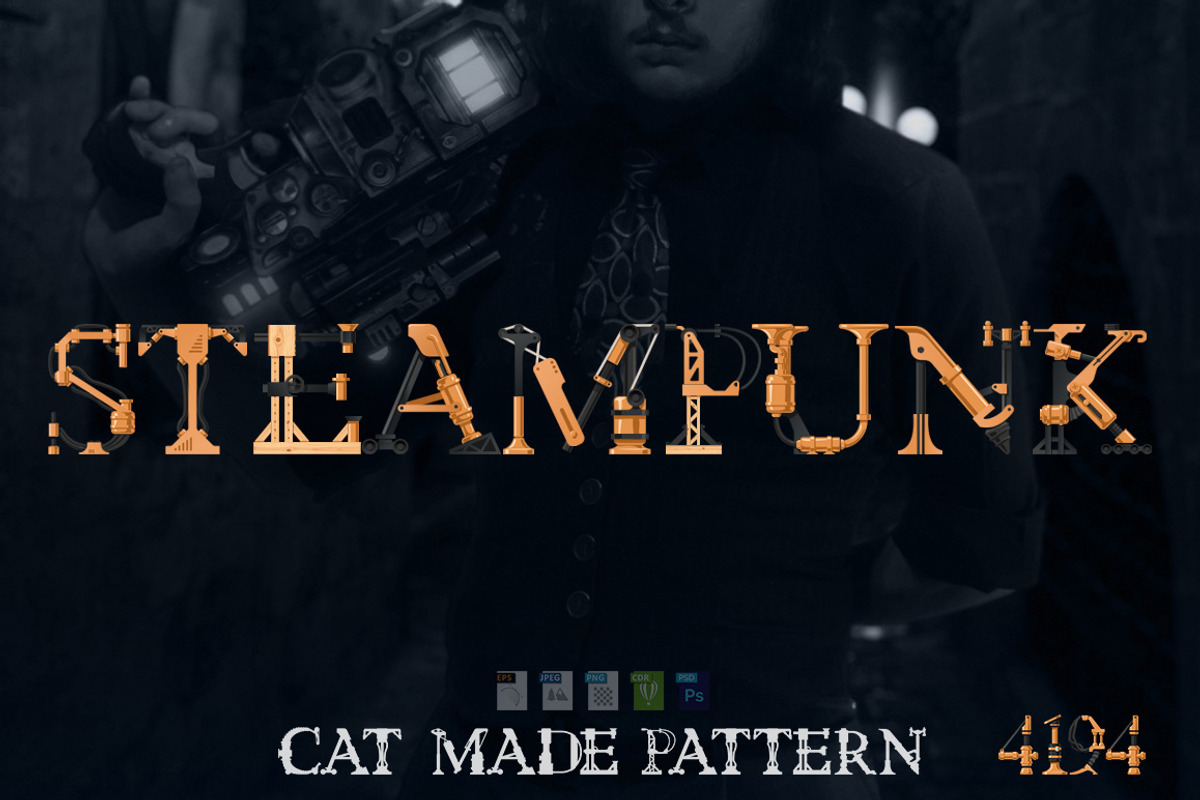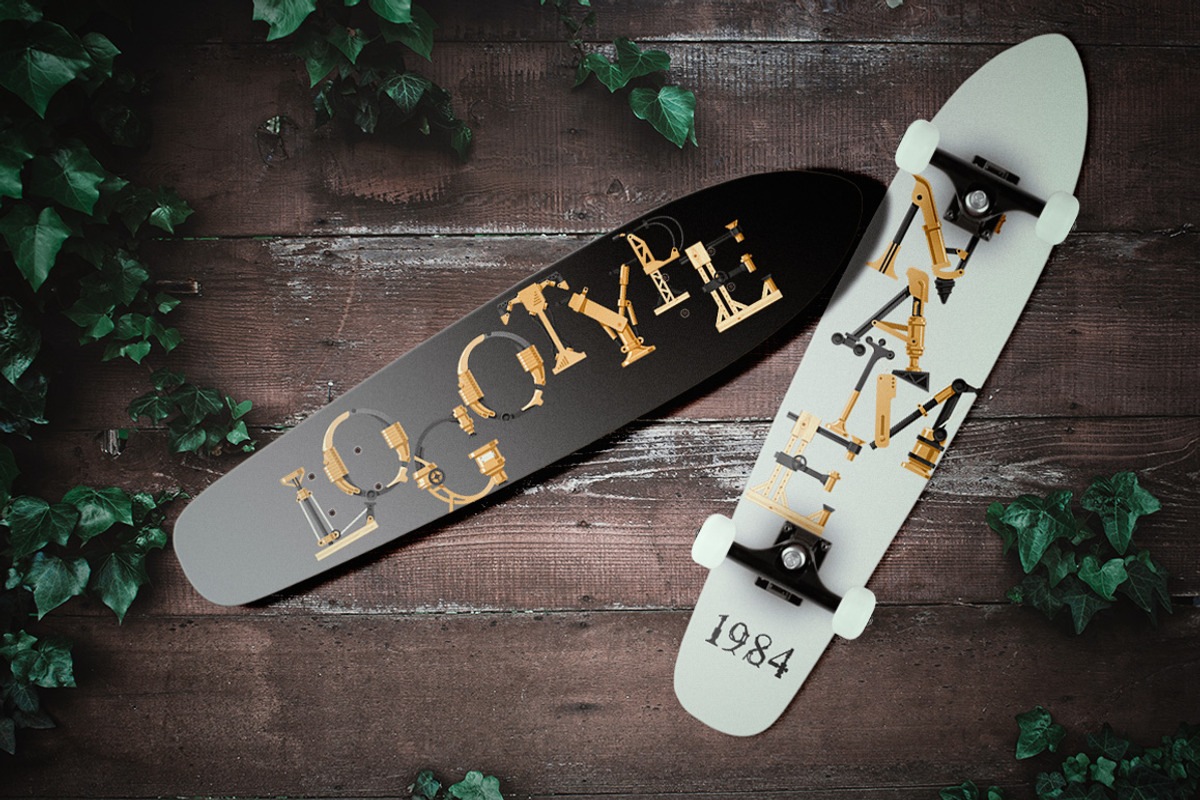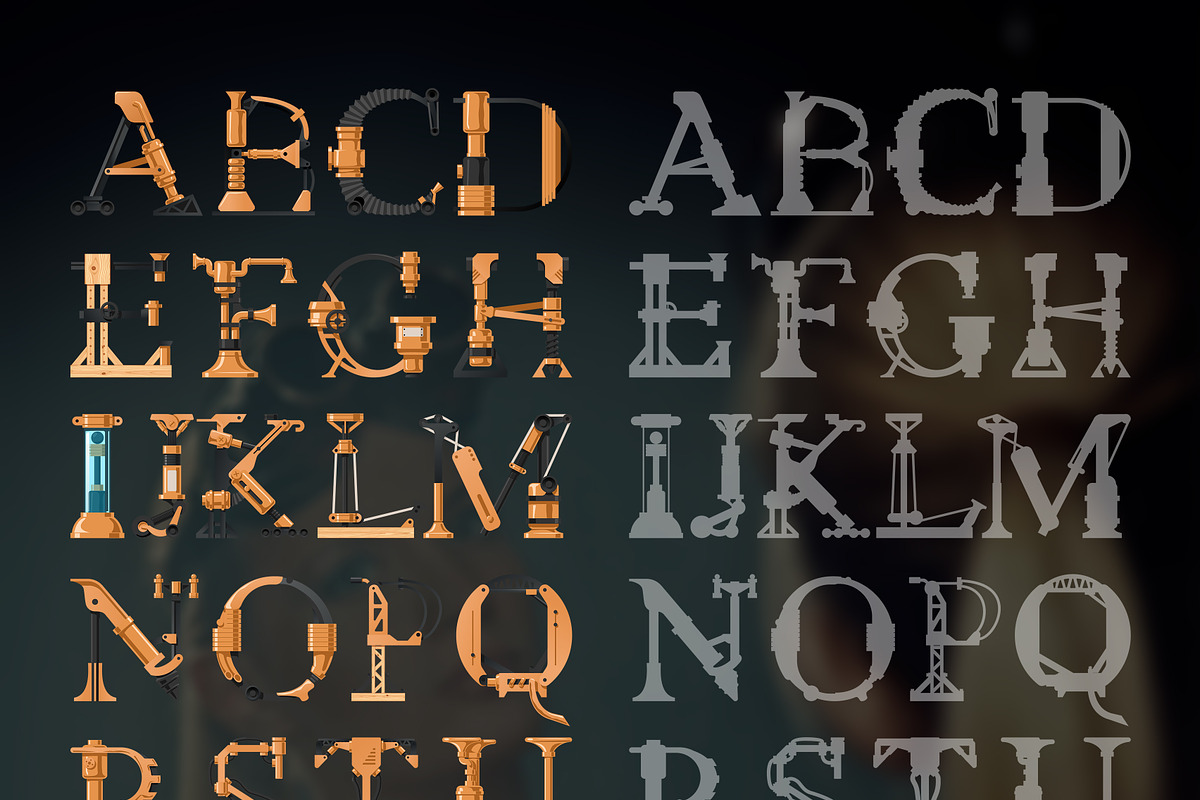
Steampunk font
Steampunk font made of different technical pieces: pipes, blocks, screws, etc. Font is represented by the set of graphic images/vectors to make a compositions from, or to use as an initial letters Font is represented in two versions: black-and-white and brass (colored)